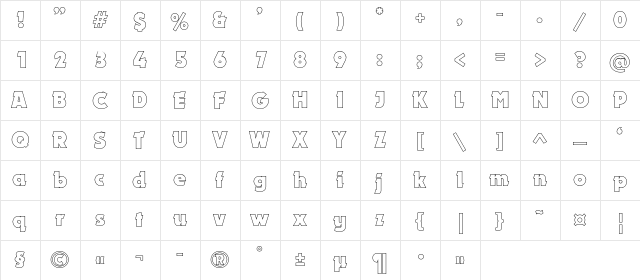
DynarOutline Regular
Design Context for DynarOutline Typeface
DynarOutline brings ornamental detail and strong personality to headlines and identities, where visual impact matters more than quiet functionality.
Font Pairing: Pair with a clean neutral sans-serif for body copy to let DynarOutline's character lead without overwhelming the composition.
Pro Tip: Treat DynarOutline as the centrepiece of your typographic hierarchy. One strong heading set in a decorative face can carry an entire layout.